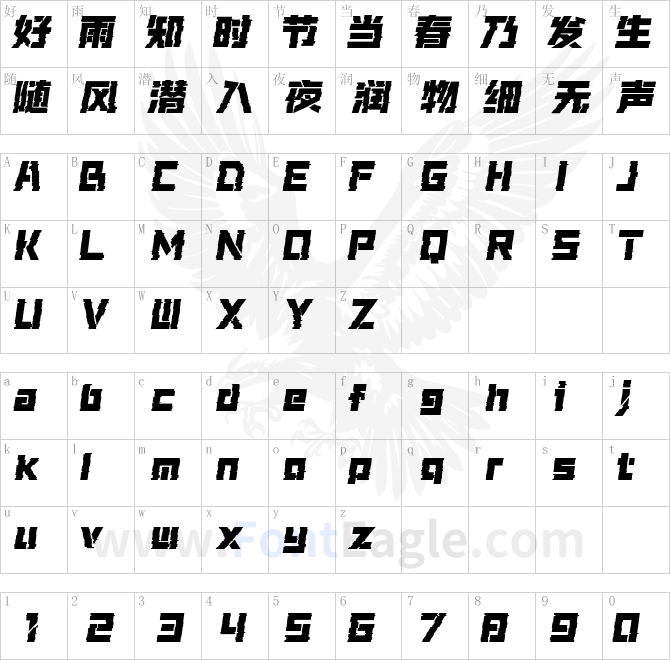
潮抖炸屏奥运精神拼搏-闪 爆 Regular.ttf Font Image
潮抖炸屏奥运精神拼搏-闪 爆 Regular.ttf Base Font Information
- Font name:潮抖炸屏奥运精神拼搏-闪 爆
- Font Subfamily ID:1.000;REEJI;DouFont-PinboGB-Flash-Burst
- Font Full Name:潮抖炸屏奥运精神拼搏-闪 爆
- Postscript:DouFont-PinboGB-Flash-Burst